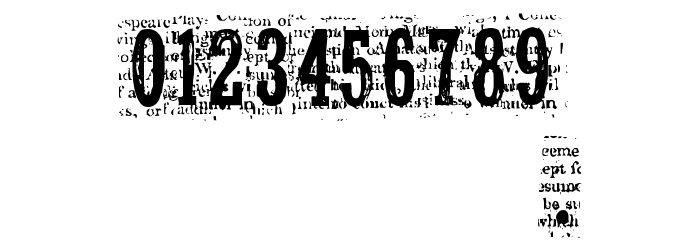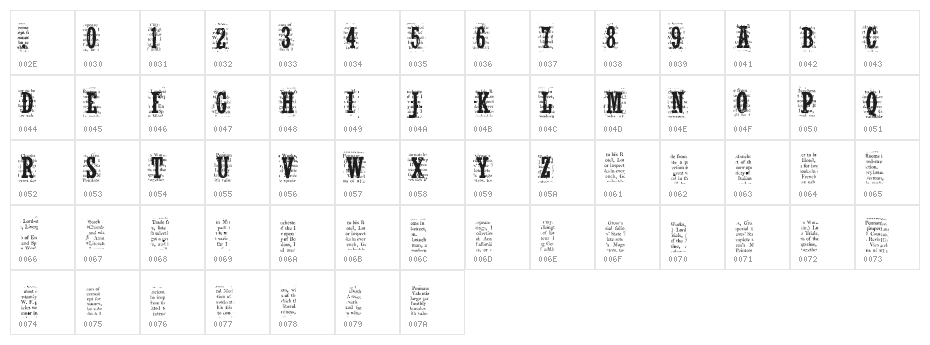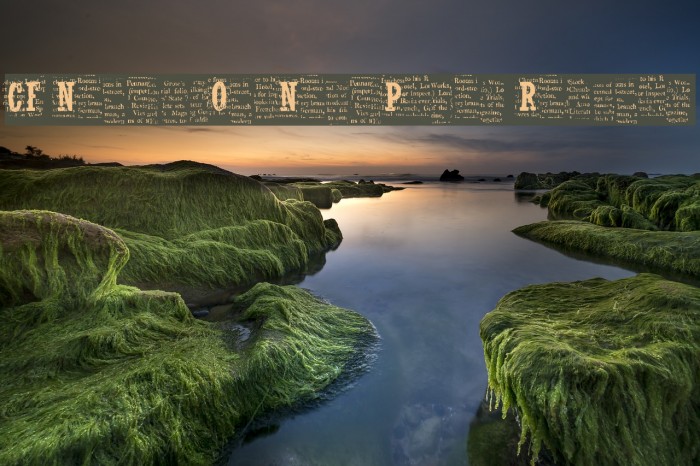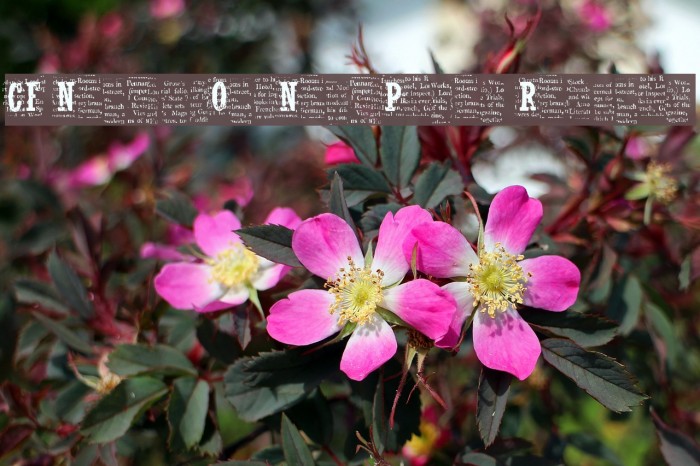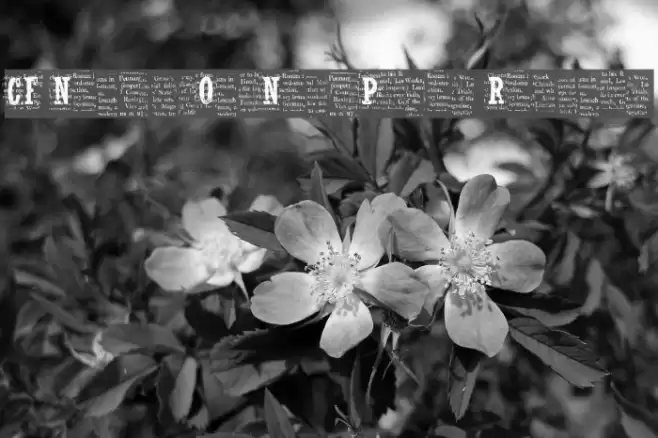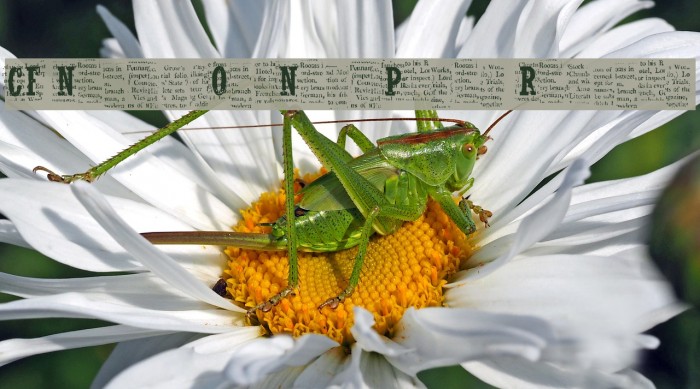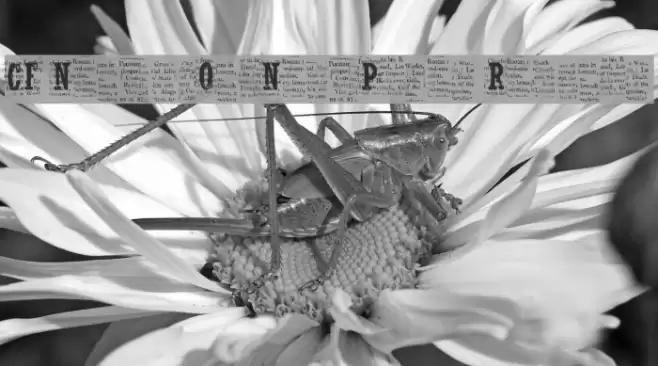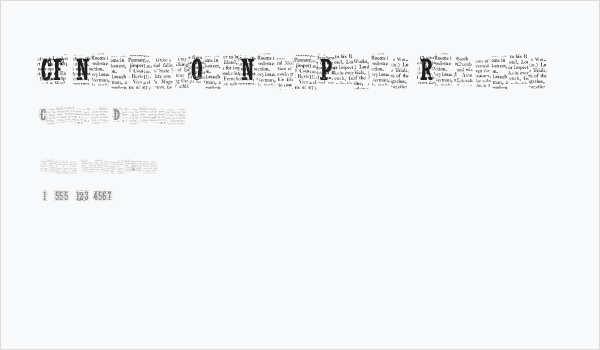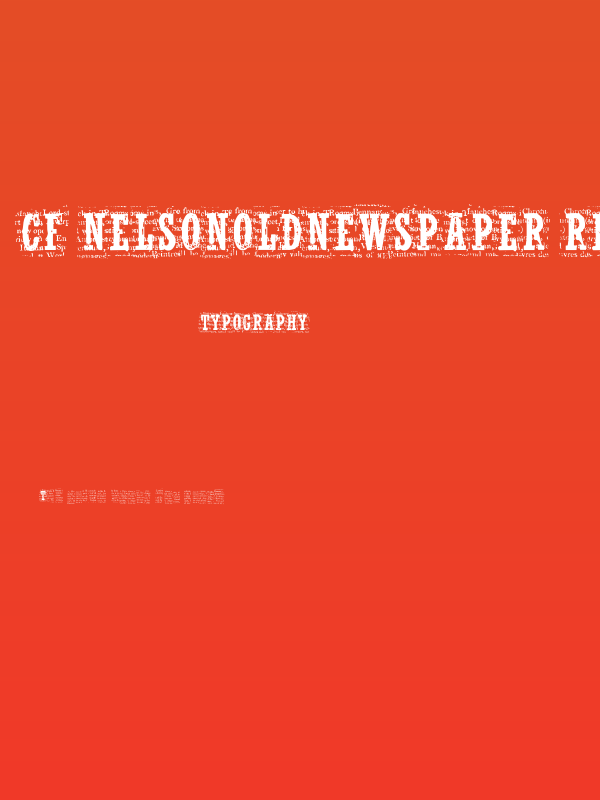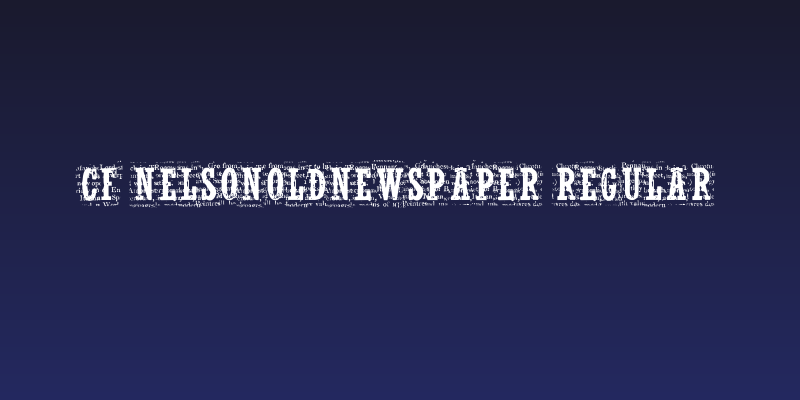
CF NelsonOldNewsPaper Regular Font
CF NelsonOldNewsPaper Regular Description
This font exudes a vintage charm reminiscent of old newspapers, with its bold and slightly distressed appearance. The uppercase letters are prominent and commanding, while the lowercase letters maintain a consistent style that complements the overall aesthetic. The numerals are clear and legible, designed to stand out in any context. Special characters are included, adding versatility to the font's usage. The distressed texture gives it an aged, historical feel, making it ideal for projects that require a touch of nostalgia or a retro vibe.
| Proposed Projects | Perfect for vintage-themed posters, historical documents, retro branding, and any design requiring an old newspaper aesthetic. |